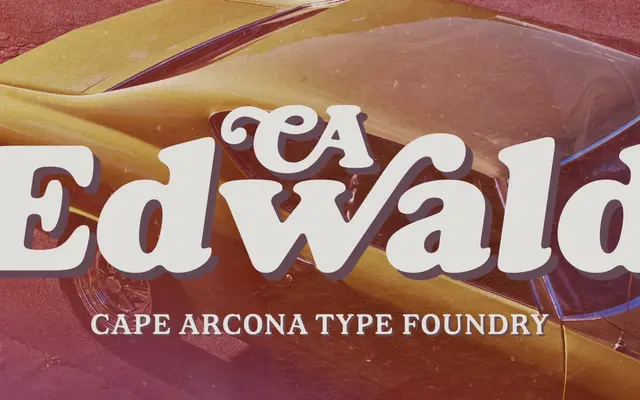
CA Edwald
Cape Arcona · Thomas Schostok, Stefan Claudius
A bold display serif by Thomas Schostok and Stefan Claudius, conceived as a hybrid of Cooper Black and Ed Benguiat's Benguiat, available in five weights with italics and a variable font.
Drawing explicitly from two heavyweight American display classics, CA Edwald combines the rounded warmth of Cooper Black with the ornamental character of Benguiat into a single 10-style family. Five weights run from Light to Black, each with a matching italic, and a variable font is included alongside a rich set of OpenType features including swashes, stylistic alternates and titling alternates. Suited to advertising headlines, packaging and logo work where a distinctive period-inflected weight is needed.
Cape Arcona classifies it as serif; the design is a bold display roman drawing on the rounded, heavy forms of Cooper Black and the decorative qualities of Benguiat, making it a display serif in character.